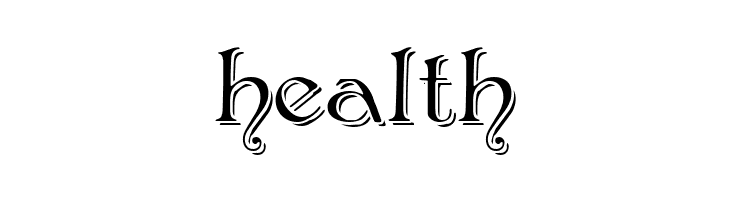
Penshurst Font
Font by Paul Lloyd
An elegant and decorative serif font with intricate details and ornamental flair.
Penshurst Bold Font
Font by Paul Lloyd
A decorative and ornate serif font with bold, intricate details.
Penshurst_Shadow Font
Font by Paul Lloyd
An ornate and decorative font with shadow effects and intricate details.